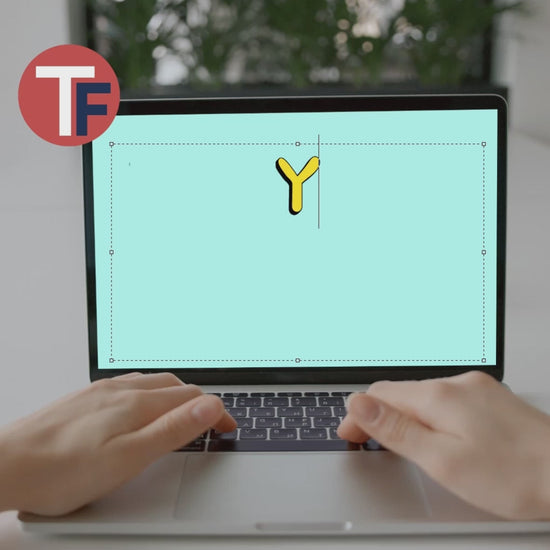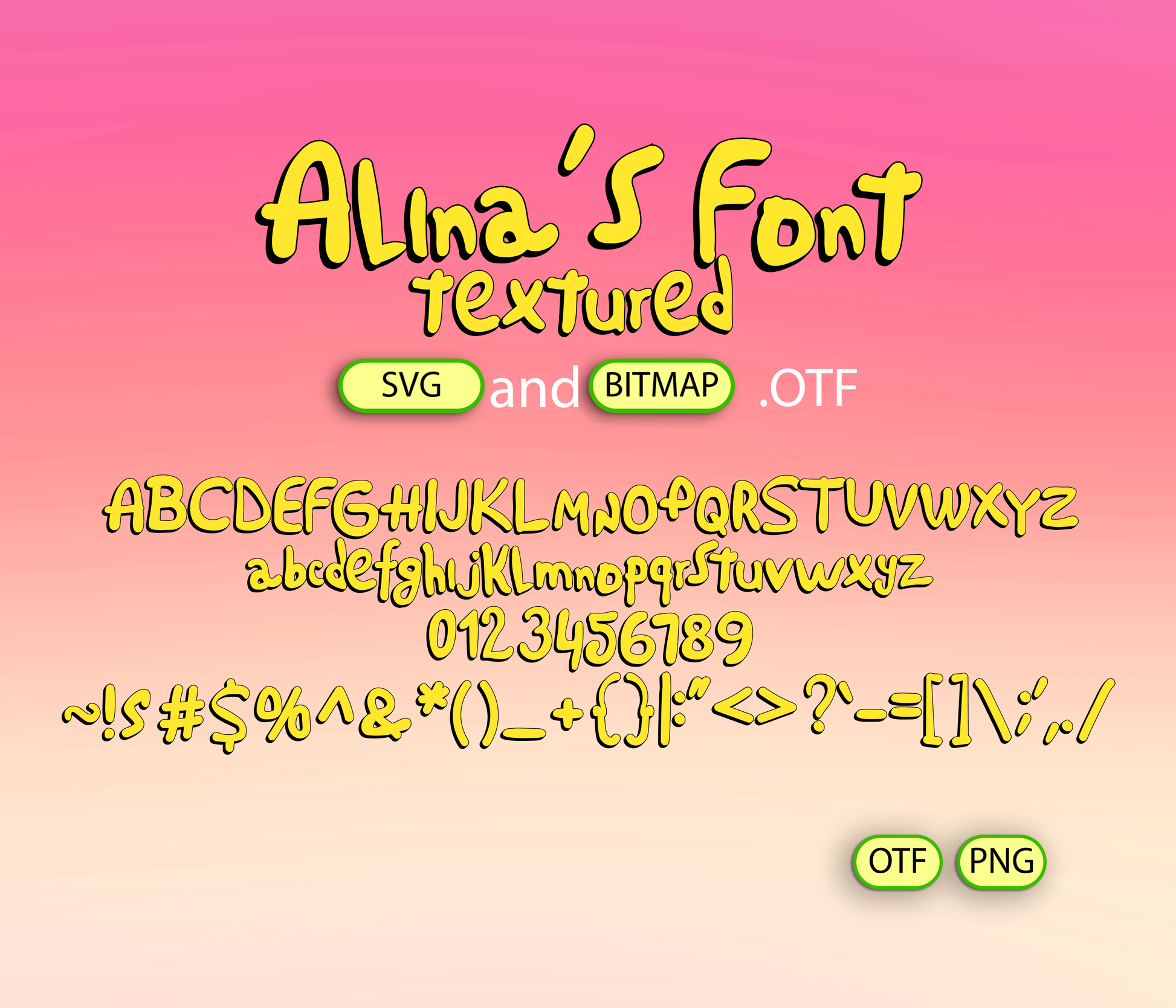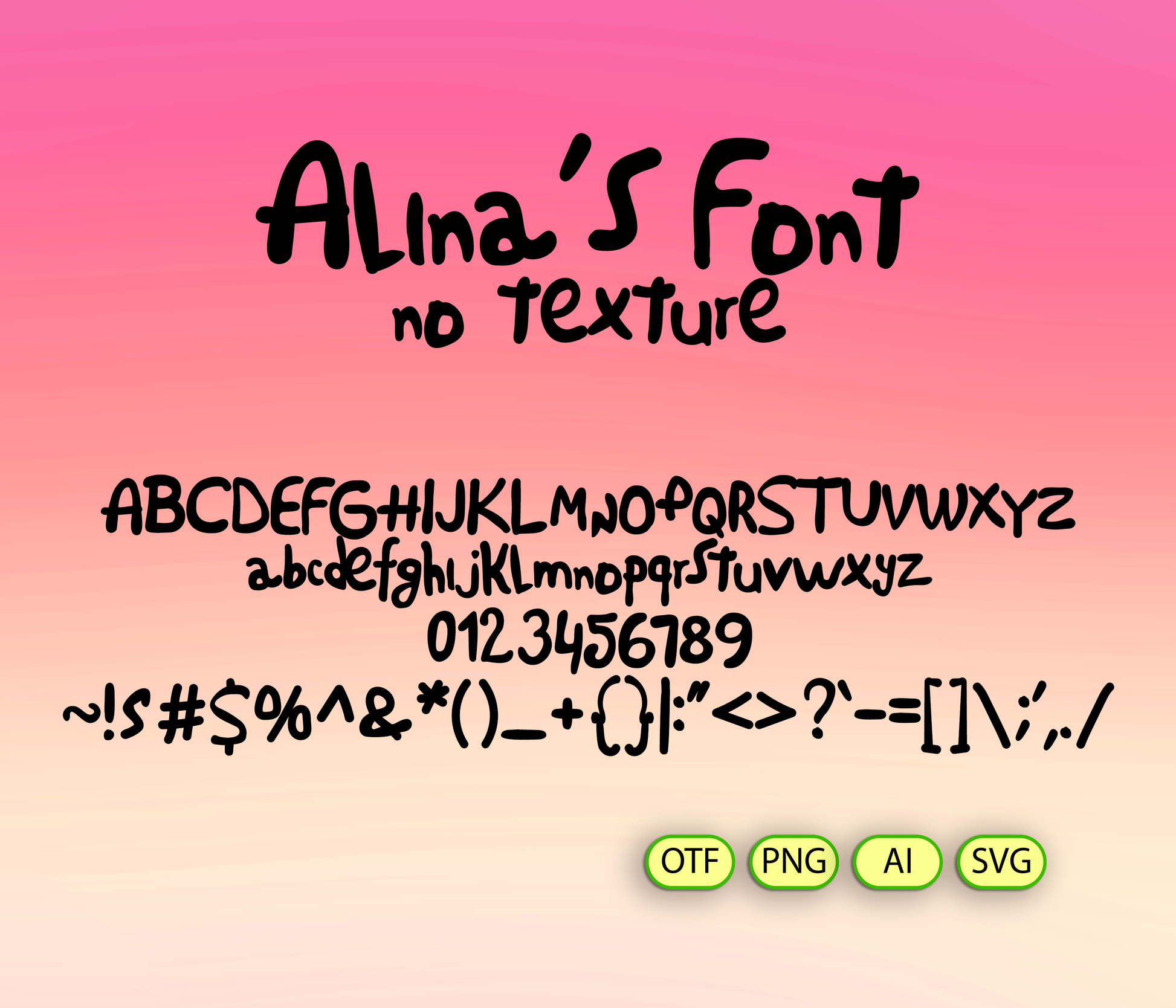
Suburban Family Fonts Textured
Unveil a world of creative possibilities with Alina's Suburban Family Textured Font—a textured, eye-catching colored font that takes its inspiration from America's most iconic animated family. Perfectly capturing the quirks of a mischievous son, a bumbling father, and the whole clan, this font is a must-have for any fan or creative soul.
Designed for seamless use with your Cricut machine, Alina's Suburban Family Textured Font makes cutting and crafting a breeze, whether you're creating cake toppers for a themed party or custom decals for home décor. Have a birthday coming up? The nostalgia-evoking letters add the ideal touch to birthday invitations, transporting invitees right to a familiar animated living room.
But that's not all! With its versatile characters and textured finish, Alina's Suburban Family Textured Font is also an excellent choice for t-shirt designs. Imagine wearing your fandom on your sleeve—literally! Be it the son's rebellious charm or the father's loveable goofiness, this font encapsulates the essence of each character in every stroke.
Don't miss out on this whimsical font that offers limitless creative avenues. Ideal for cake toppers, birthday invitations, t-shirts, and Cricut projects, Alina's Suburban Family Textured Font is the ultimate addition to your design toolkit. Perfect for: